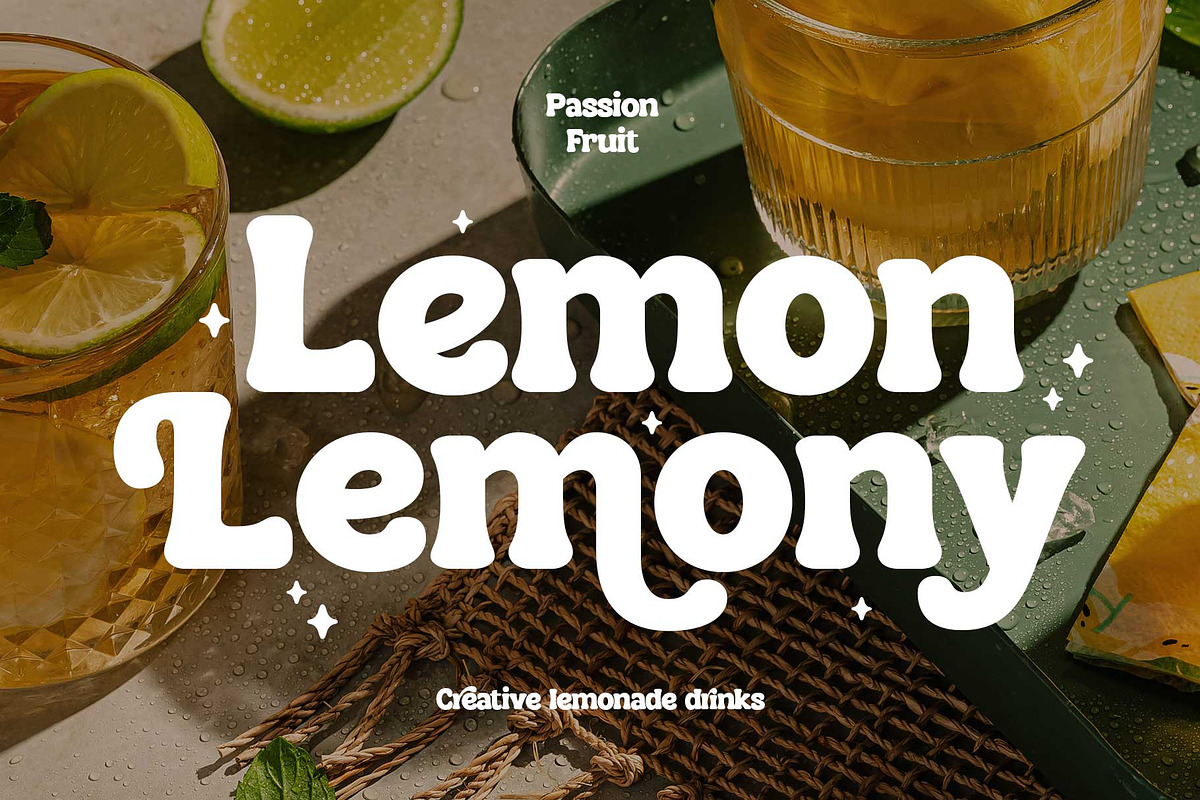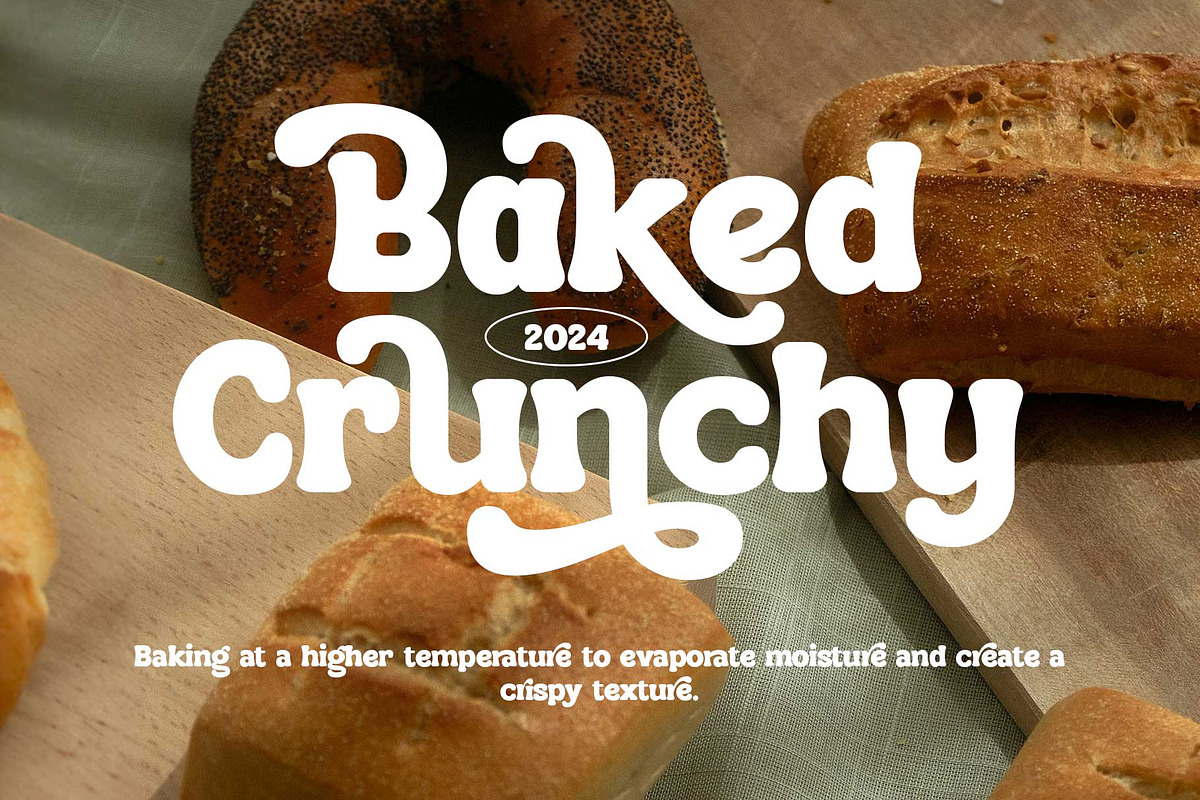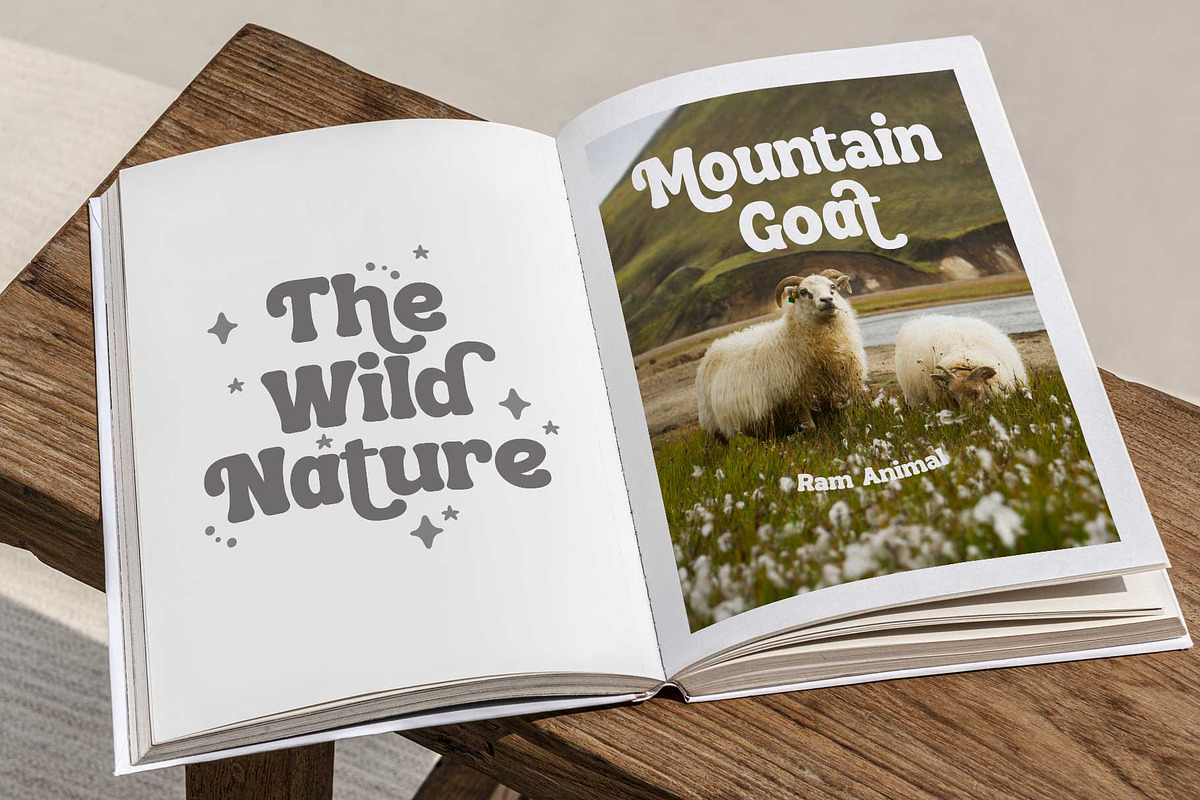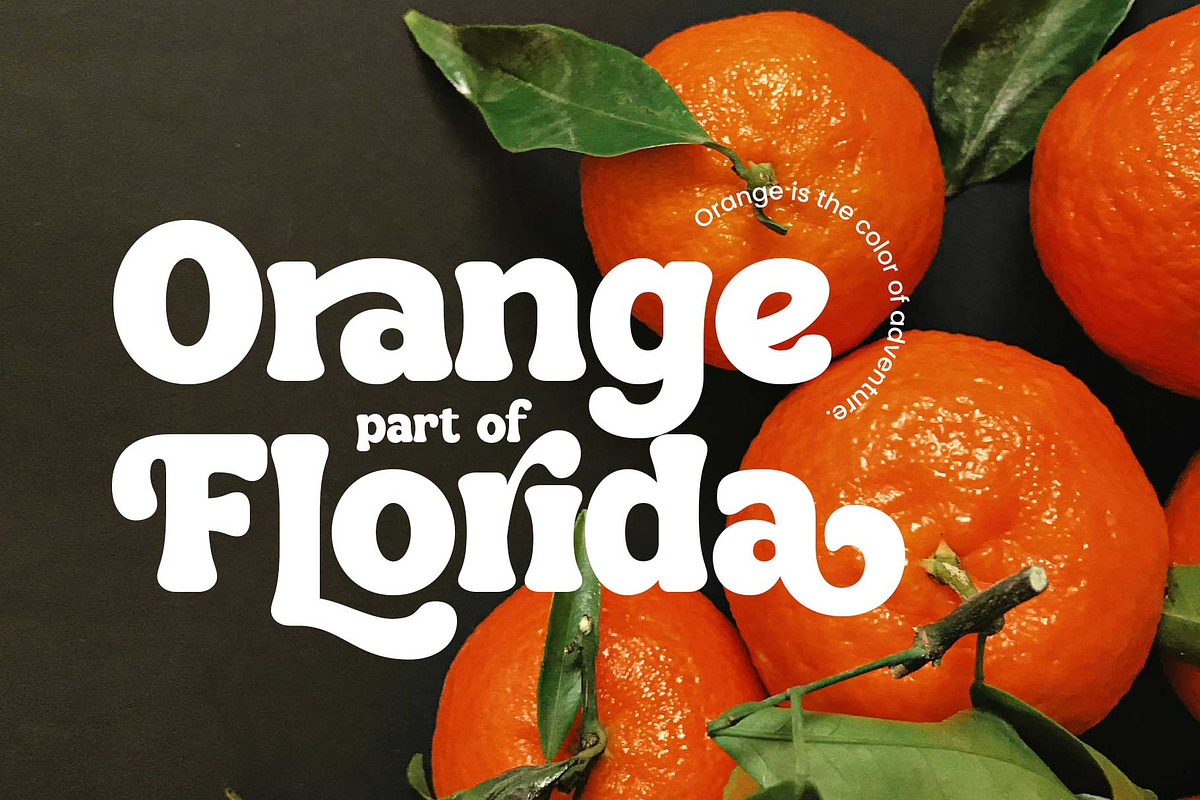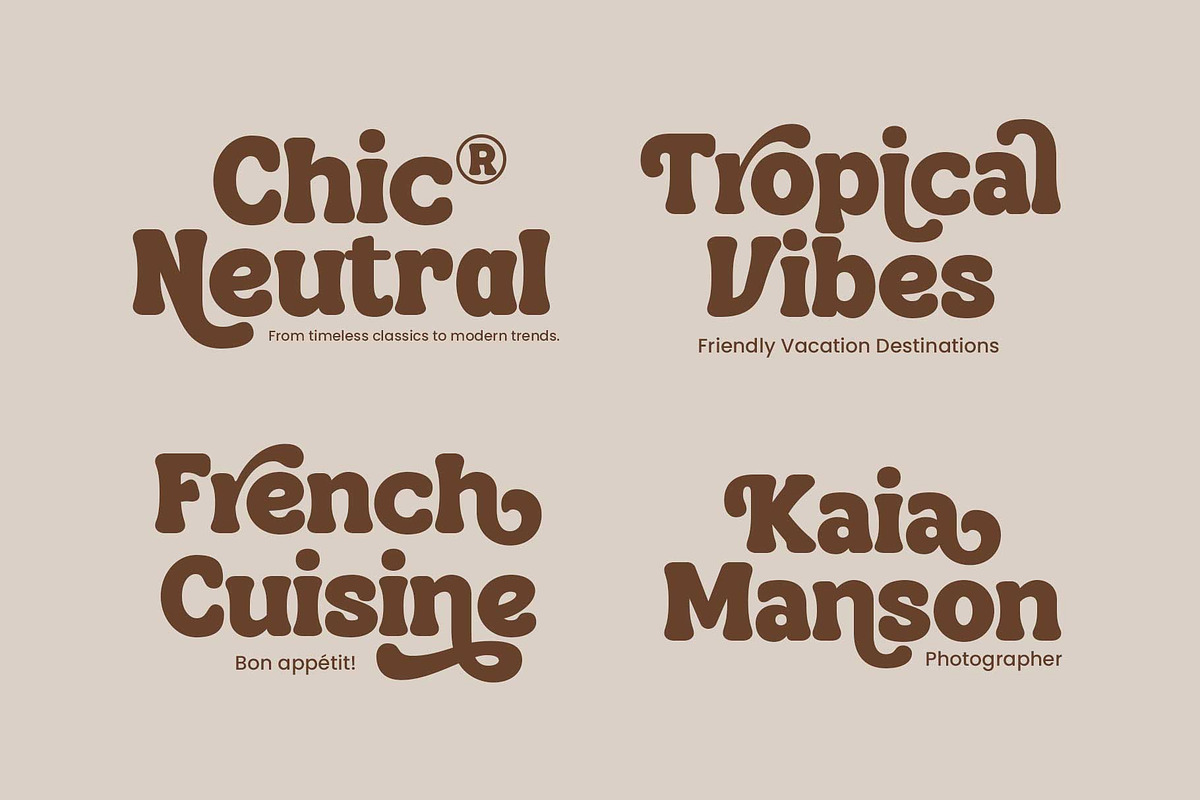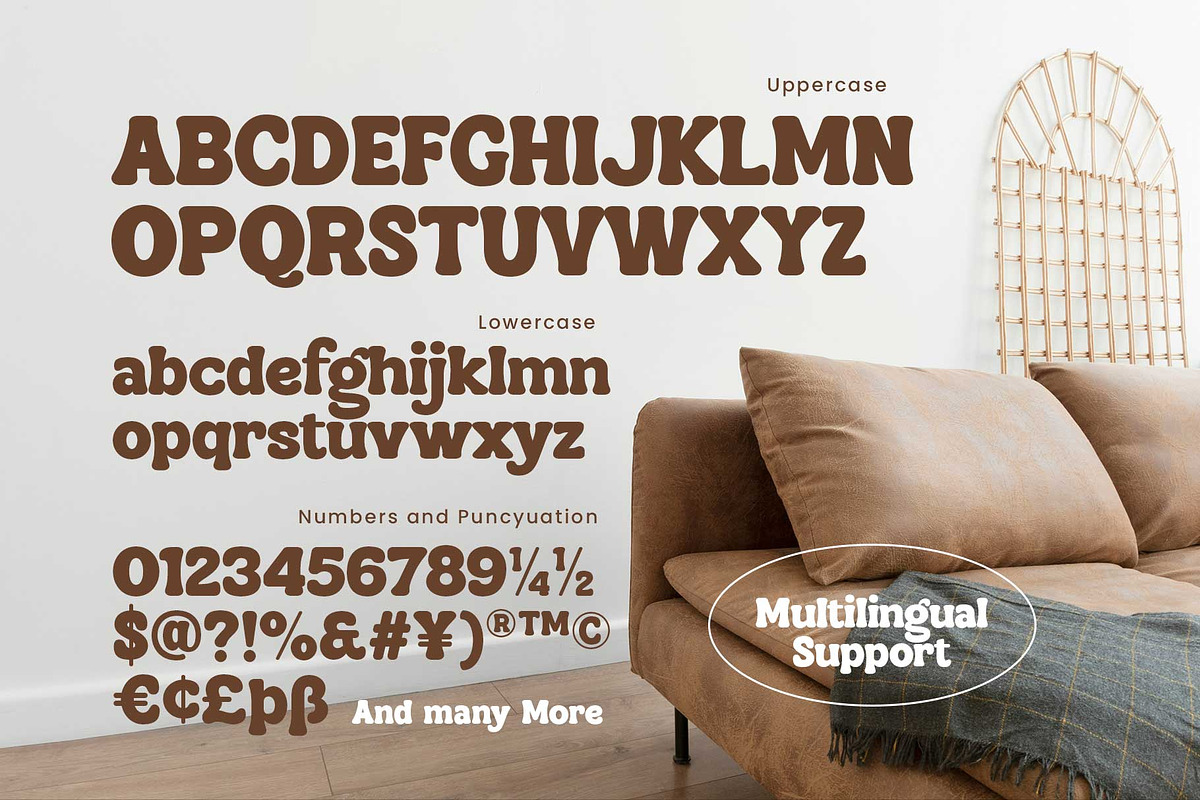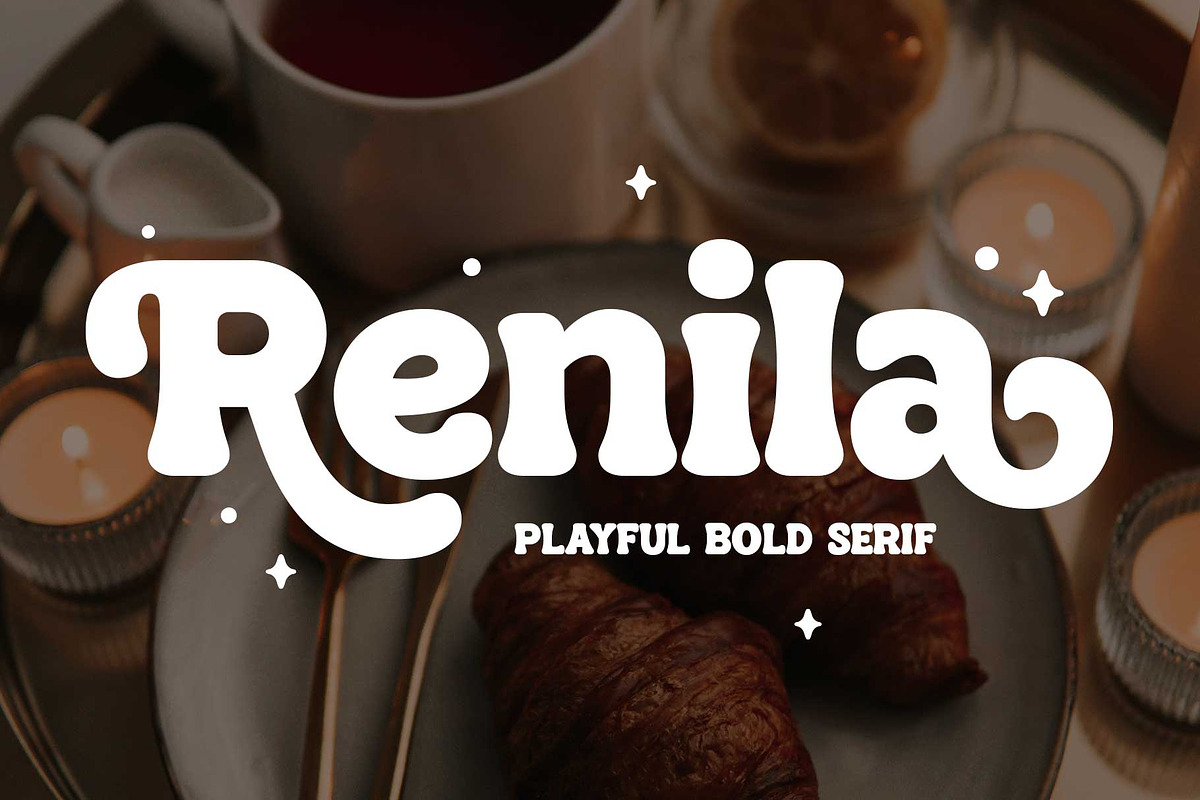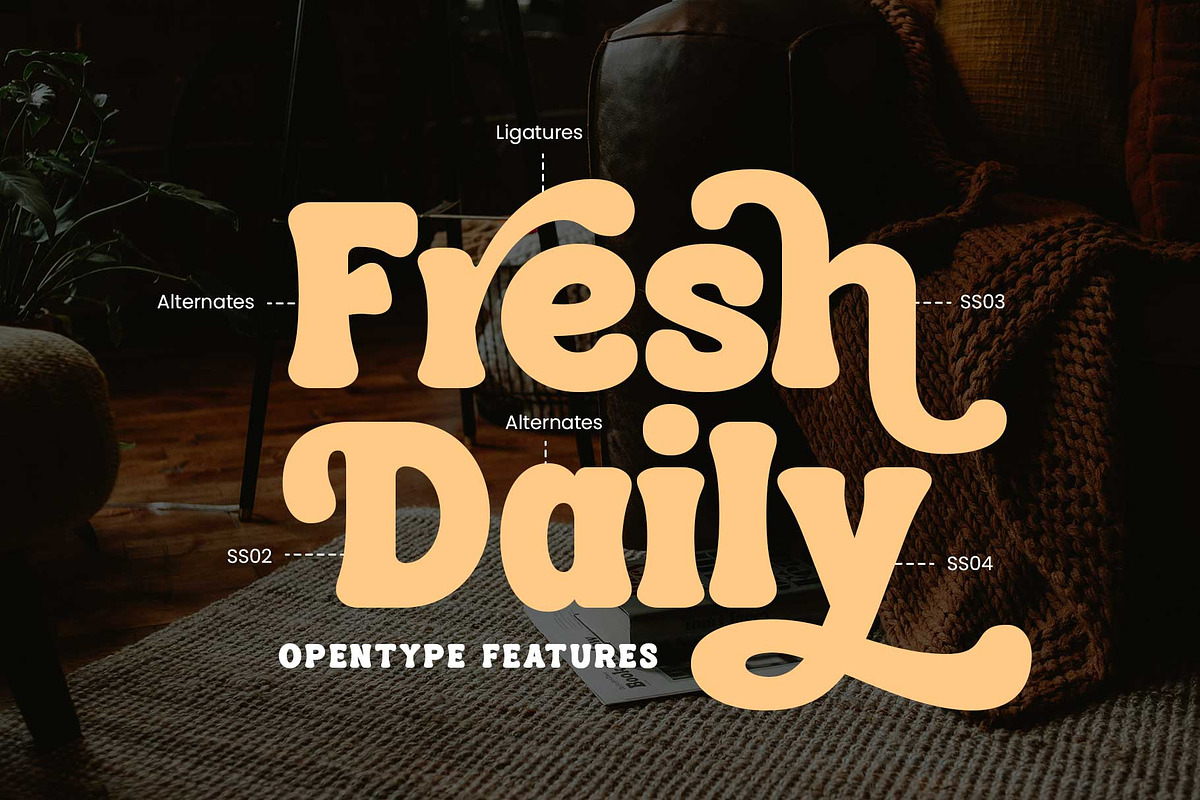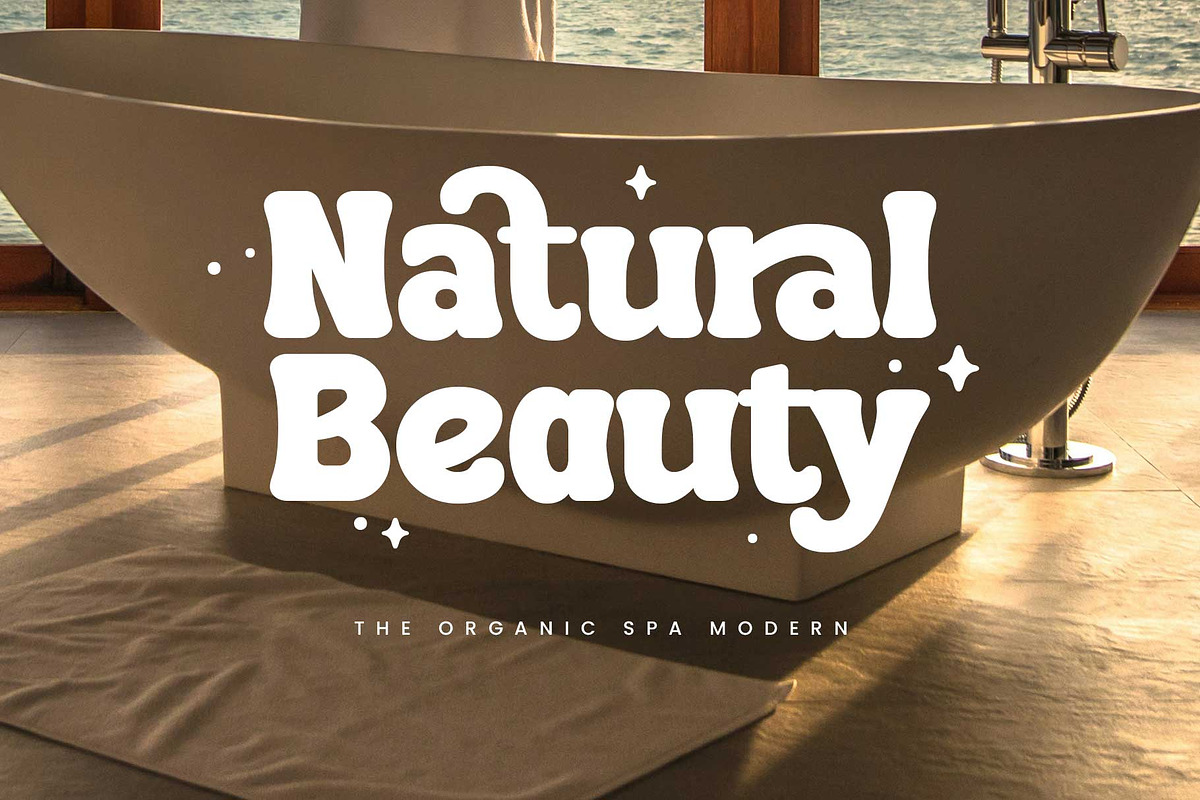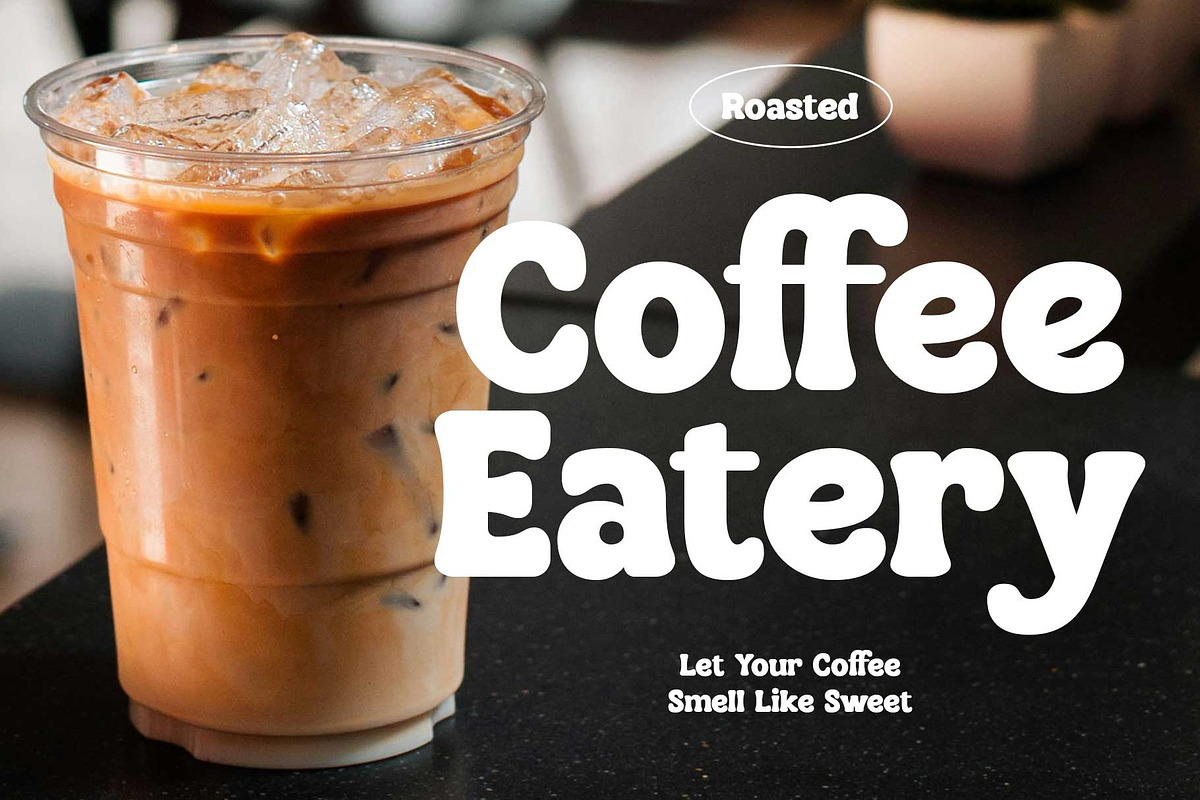
Renila - Retro Bold
Renila is a retro bold font with a unique groovy touch, blending nostalgia with modern charm. Perfect for logos, posters, social media, and branding, it adds a special spark to your projects.
With a range of alternates and ligatures, Renila offers endless possibilities for your designs, allowing you to express your unique vision.
- Stylistic alternates
- Stylistic set